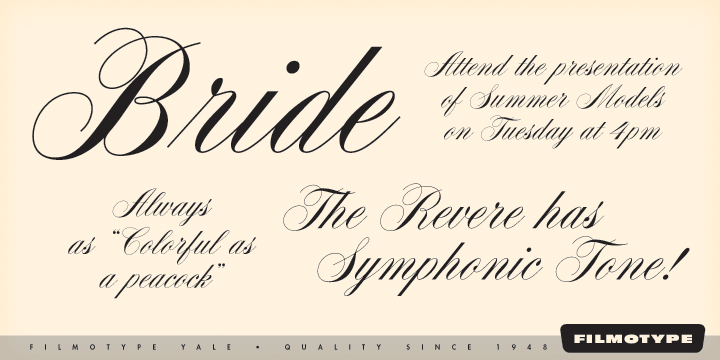
About Filmotype Yale
Originally released in the mid 1960s, Filmotype expanded its Formal Script category with Filmotype Yale. This elegant script is a natural for wedding invitations and formal occasions while offering a more delicate and slightly wider take on classic formal…